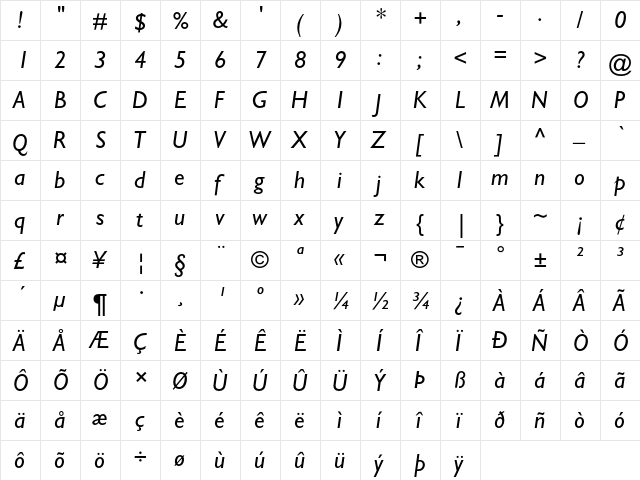
Gill Sans Italic
Design Context for Gill Sans Typeface
Gill Sans is a composed and adaptable typeface that performs quietly and consistently across a wide range of design contexts. The slanted form adds forward momentum and visual energy.
Pro Tip: Try Gill Sans for annotation and caption copy alongside an upright companion — the contrast in angle creates a dynamic but ordered typographic system.